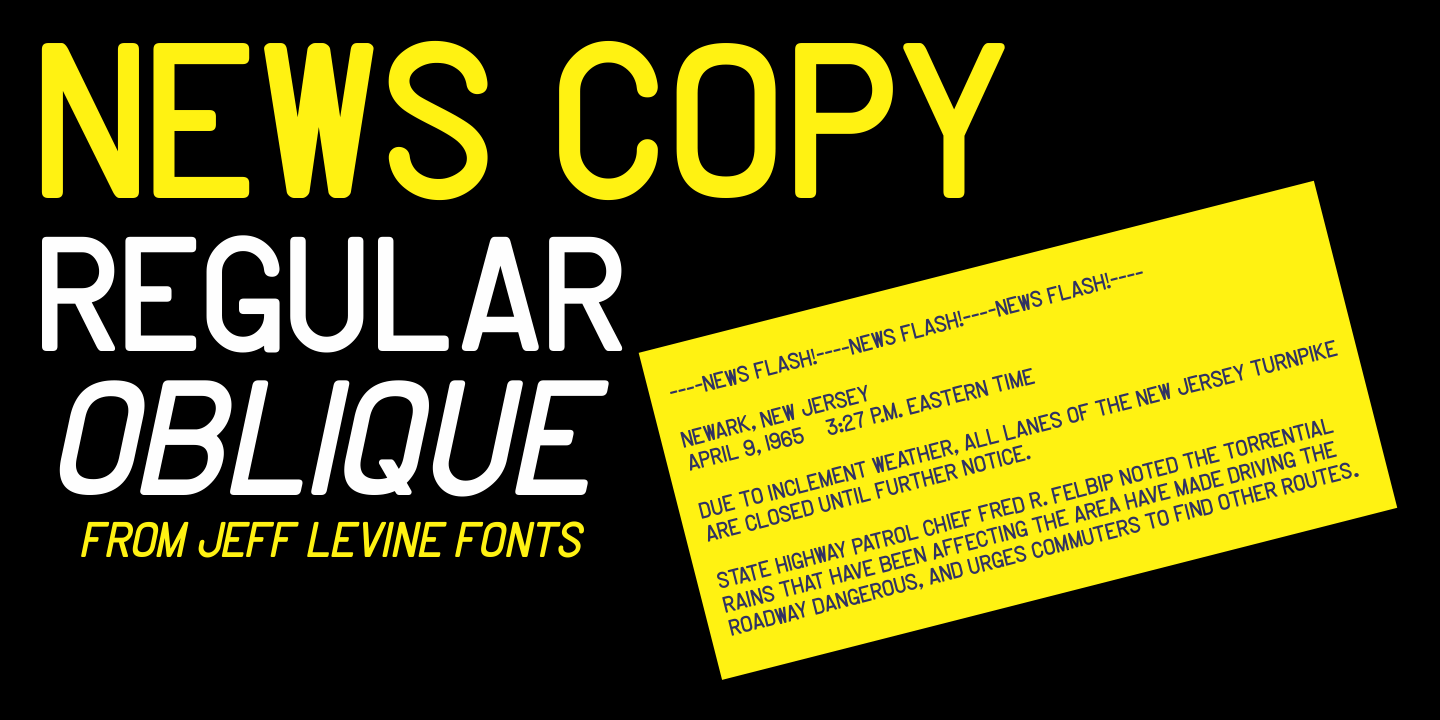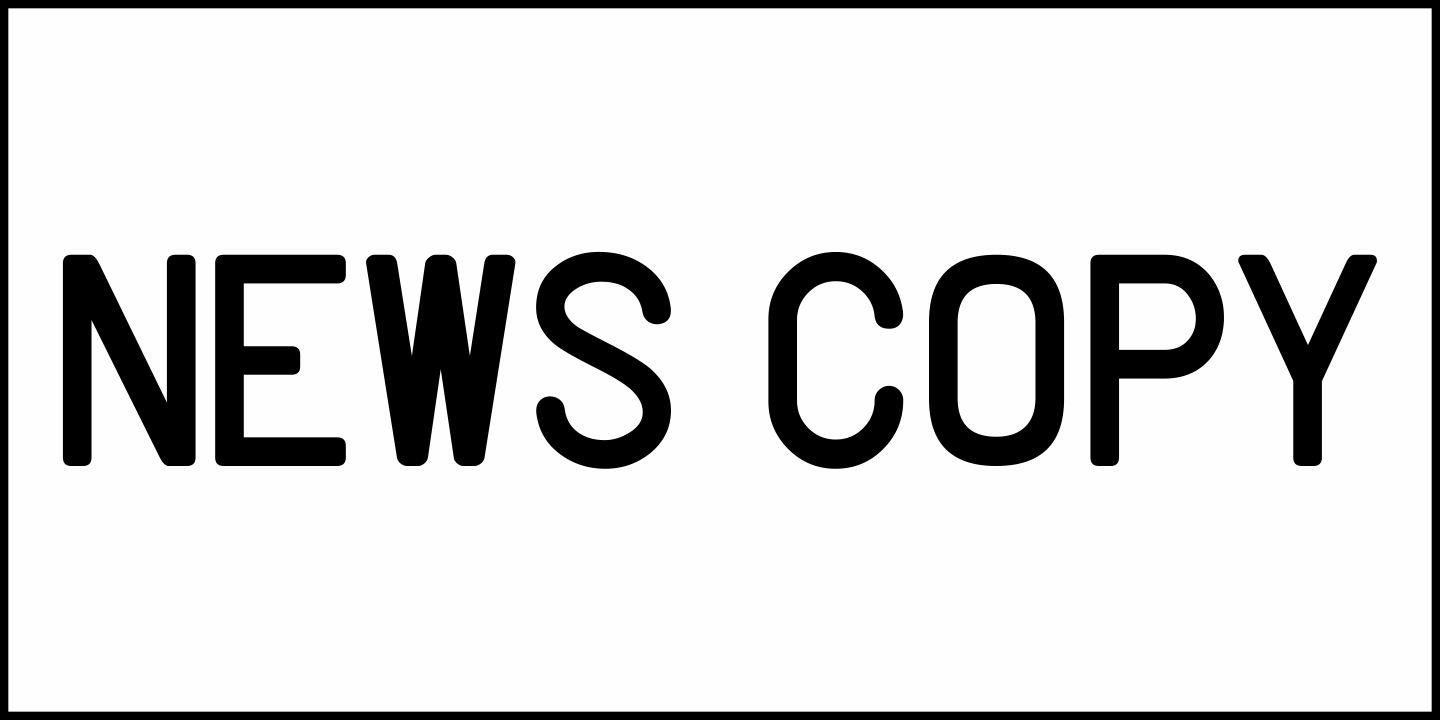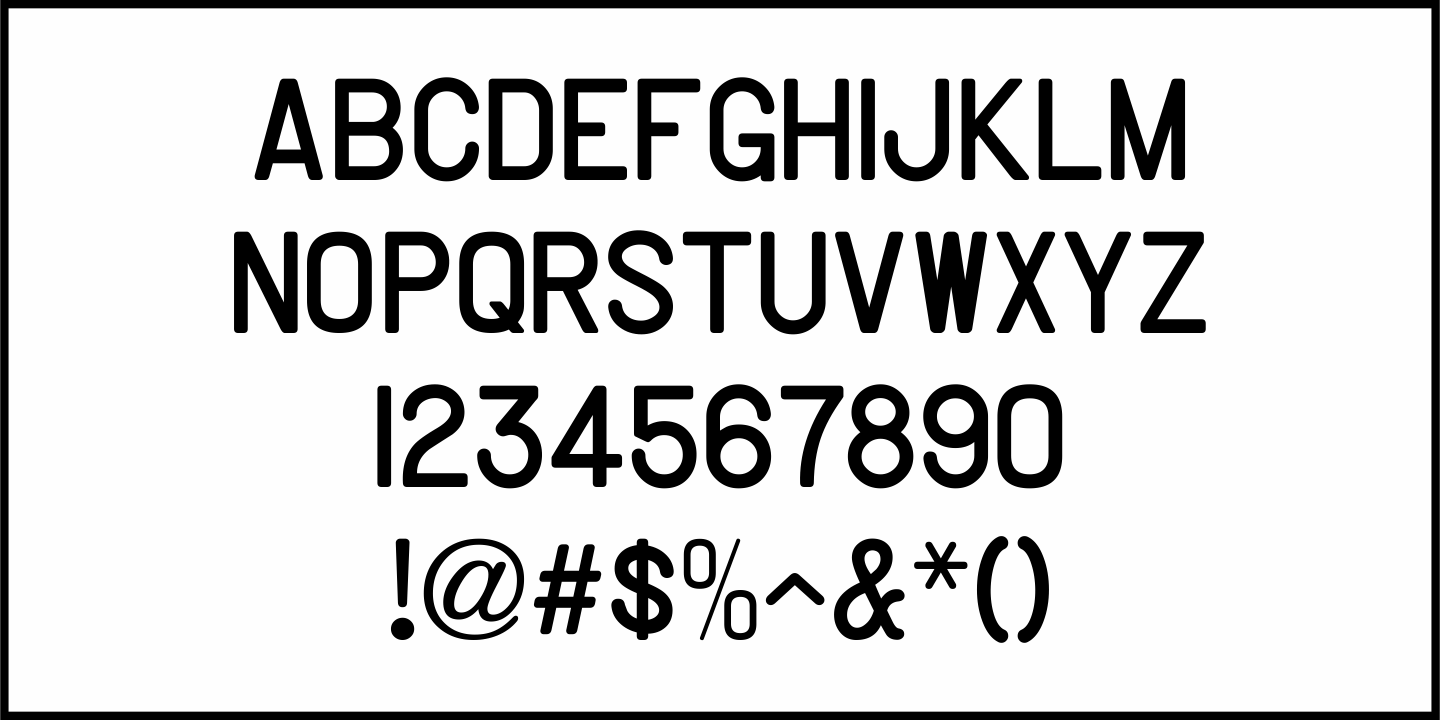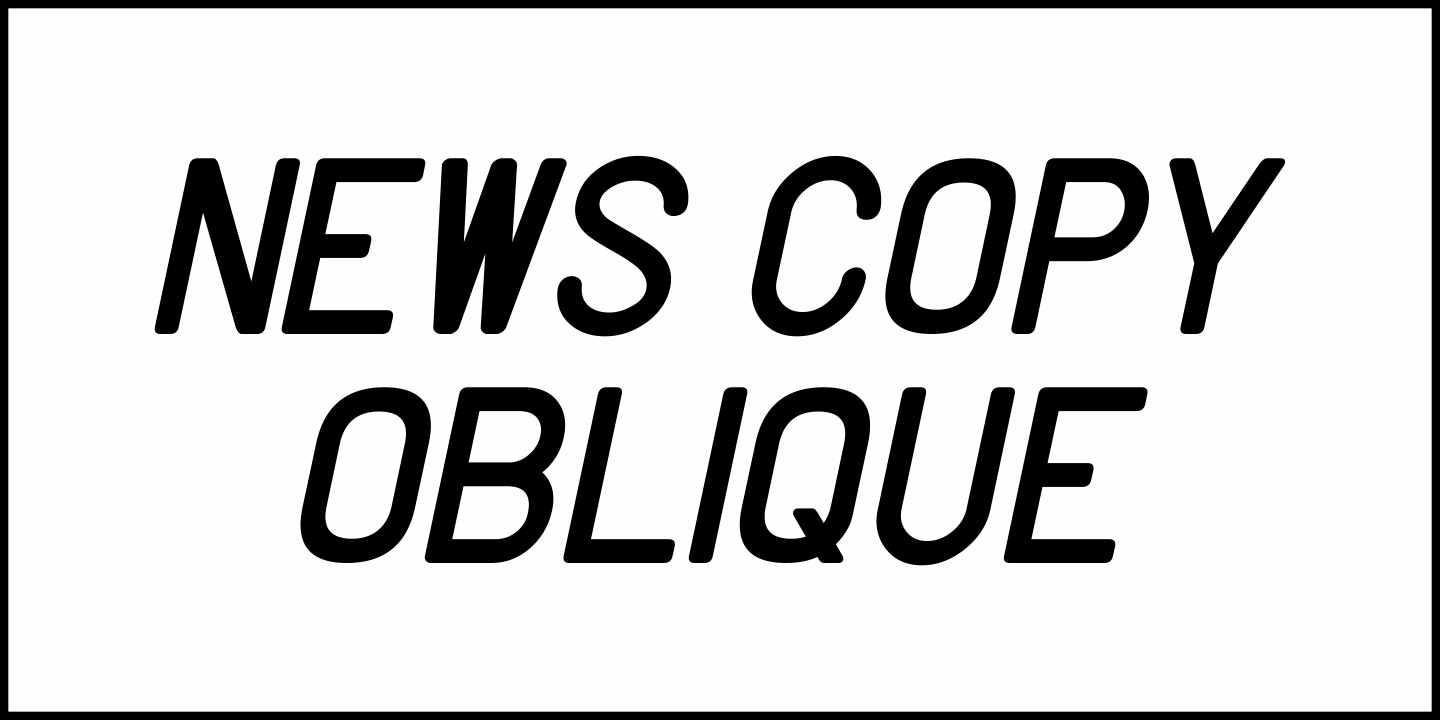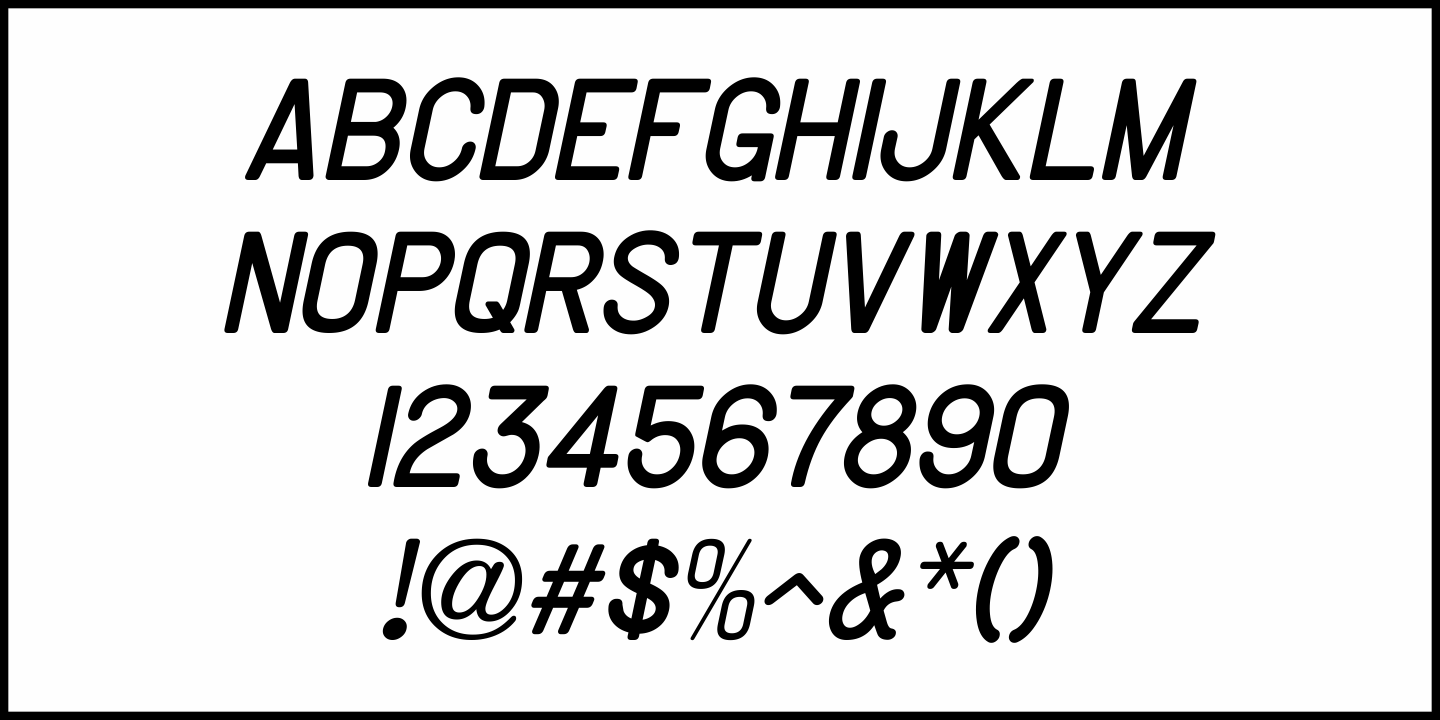
News Copy
Found within the pages of the 1934 edition of the American Type Foundry's 'Book of American Type” is a sans serif design with rounded terminals that emulates a typewriter face.
'Jumbo Typewriter” is reminiscent of the type of lettering formerly found on teletype news copy.
'Teletype” was a division of Western Electric (part of AT&T), and the machines utilized telephone lines to electronically type and send (as well as receive) messages worldwide.
Many folks will remember the sound of teletype machines in the background when radio stations had their news breaks.
Now available digitally as News Copy JNL, it is available in both regular and oblique versions.